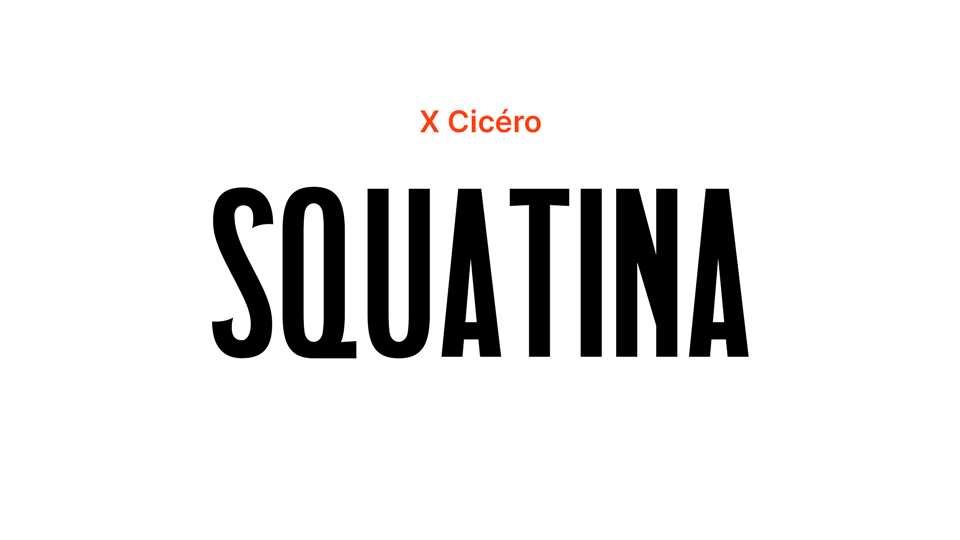
Download Squatina font, a sans serif typeface designed from an incomplete set, the shapes of which correspond to the Antiques Modernes. With its narrow width, Squatina font works best at large sizes.
Designer: Louise Sansoldi